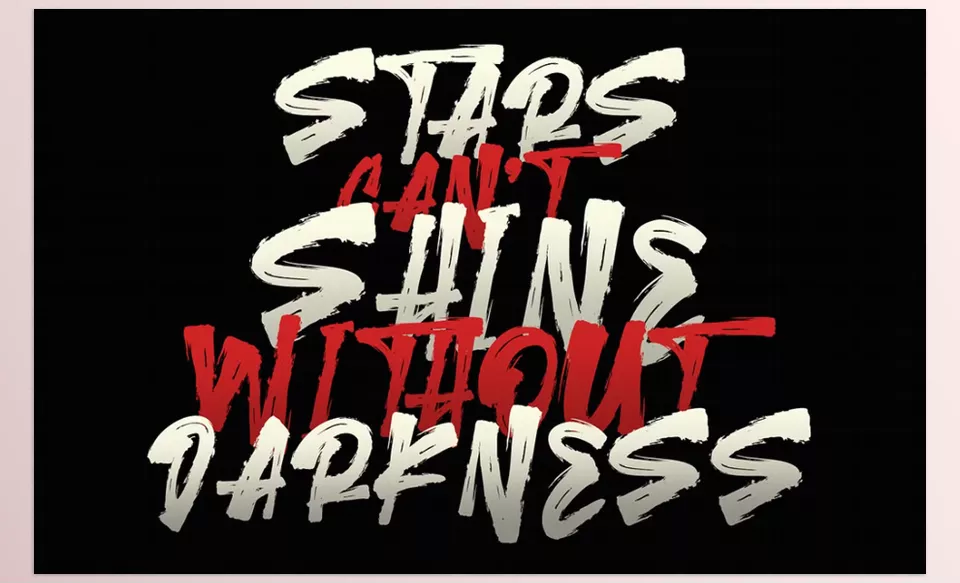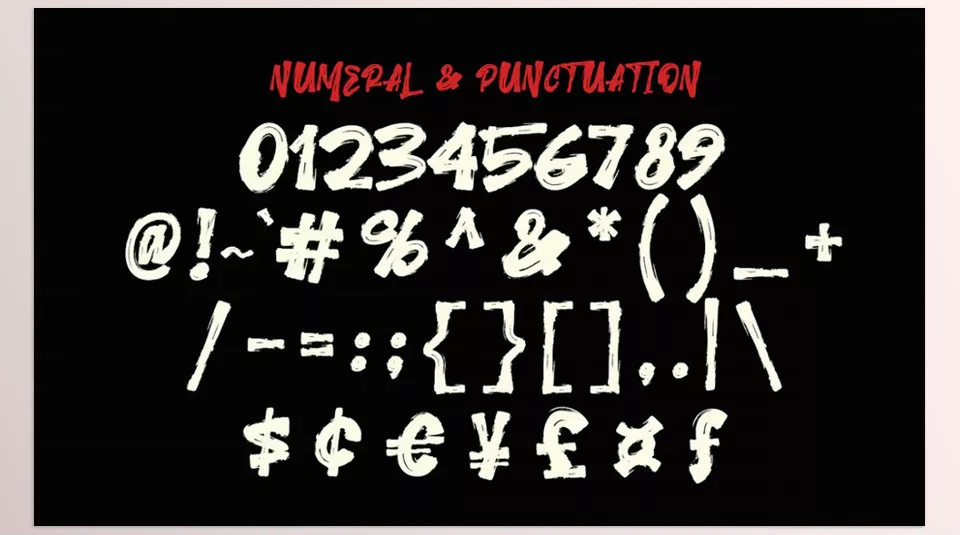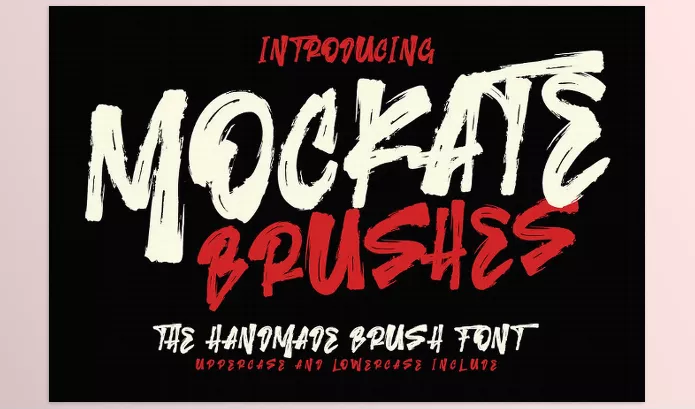
Mockate Brushes Handmade Font adds a true artistic flair to any creative project, making it suitable for stationery engravings, logotypes, typographic quotes, magazine or book cover designs, website title banners, as well as on flyers, apparel, Branding, and even packaging design.
Mockate Brushes Handmade Font Features
• Ideal for Branding: suggested brand, packaging as well and advertising materials.
• Text Enhancement: suggested will enhance visual storytelling through quotes and supported typography.
• Professional Grade: supports business and professional design in being competitive and appealing.
Preview Mockate Brushes Handmade Font
Image 1: Transform your branding with a touch of authenticity.
Mockate Brushes Handmade Font - Transform your branding with a touch of authenticity.
Image 2: Elevate your creative projects with a handcrafted aesthetic.
Mockate Brushes Handmade Font - Elevate your creative projects with a handcrafted aesthetic.